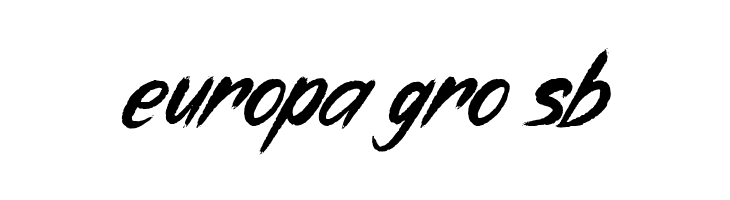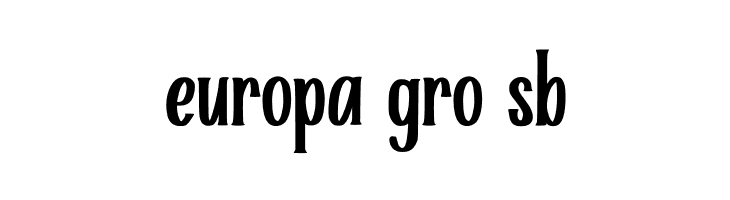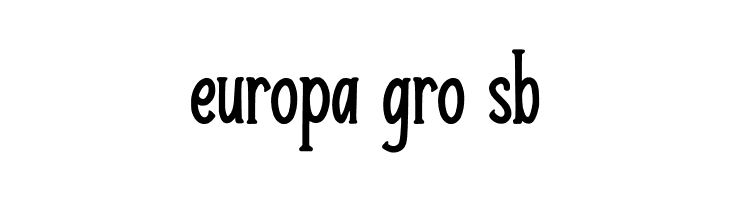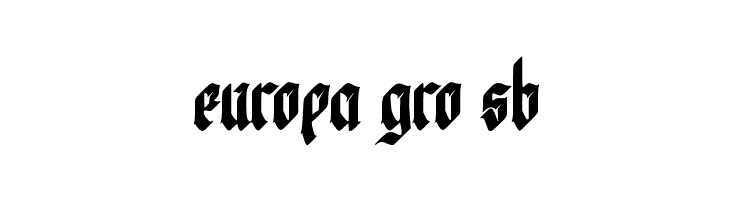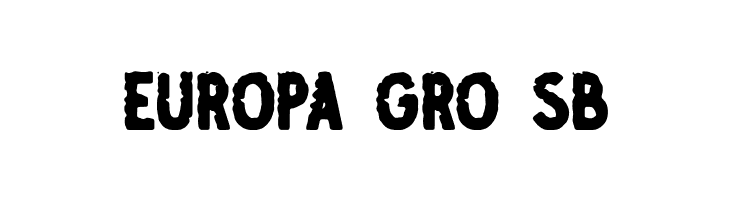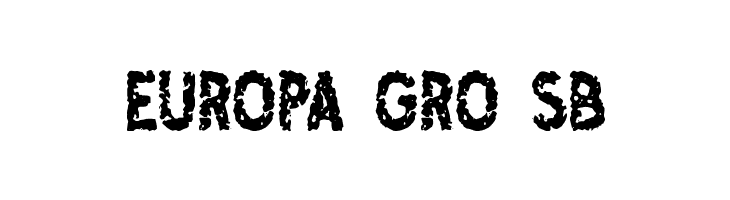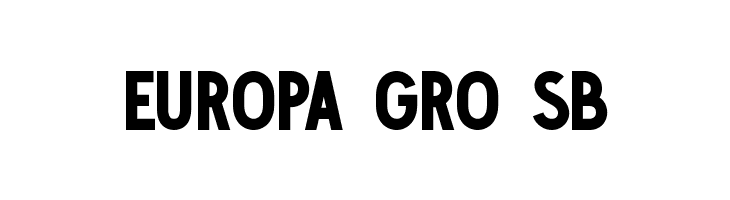
A bold, decorative font with intricate details and strong character presence.
A playful, bold, handwritten-style font with a friendly and energetic appearance.
A bold, brush-style font with dynamic slant and expressive strokes.
A bold, playful font with a slightly condensed and whimsical style.
A playful, whimsical font with tall, narrow letters and smooth, rounded strokes.
A bold, blackletter-style font with angular, sharp characters.
A bold, distressed font with a rugged, hand-crafted appearance.
A bold, textured font with a distressed, vintage look.
A bold, decorative font with modern flair and strong visual impact.
A bold blackletter font with sharp, angular lines and intricate detailing.